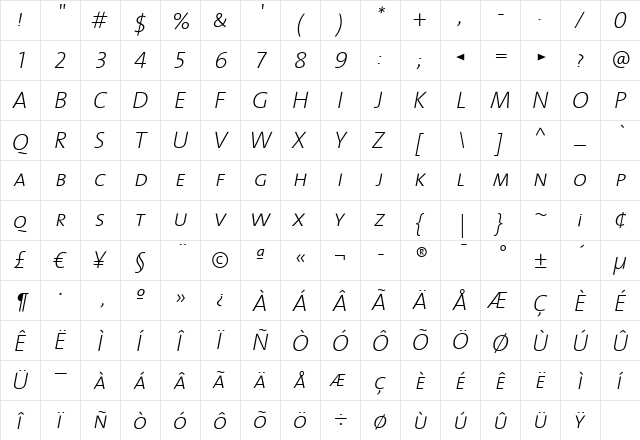
TheSans ExtraLight Italic Font Preview
TheSans ExtraLight Italic
TheSans ExtraLight Italic Font Details
| Style | ExtraLight Italic |
| Foundry | Copr. Luc as de Groot |
| Copyright | Copr. Luc as de Groot 1994 |
Design Context for TheSans Typeface
TheSans is a composed and adaptable typeface that performs quietly and consistently across a wide range of design contexts. Its italic angle brings a sense of urgency and motion to the letterforms. The delicate stroke weight brings airiness and refinement to layouts.